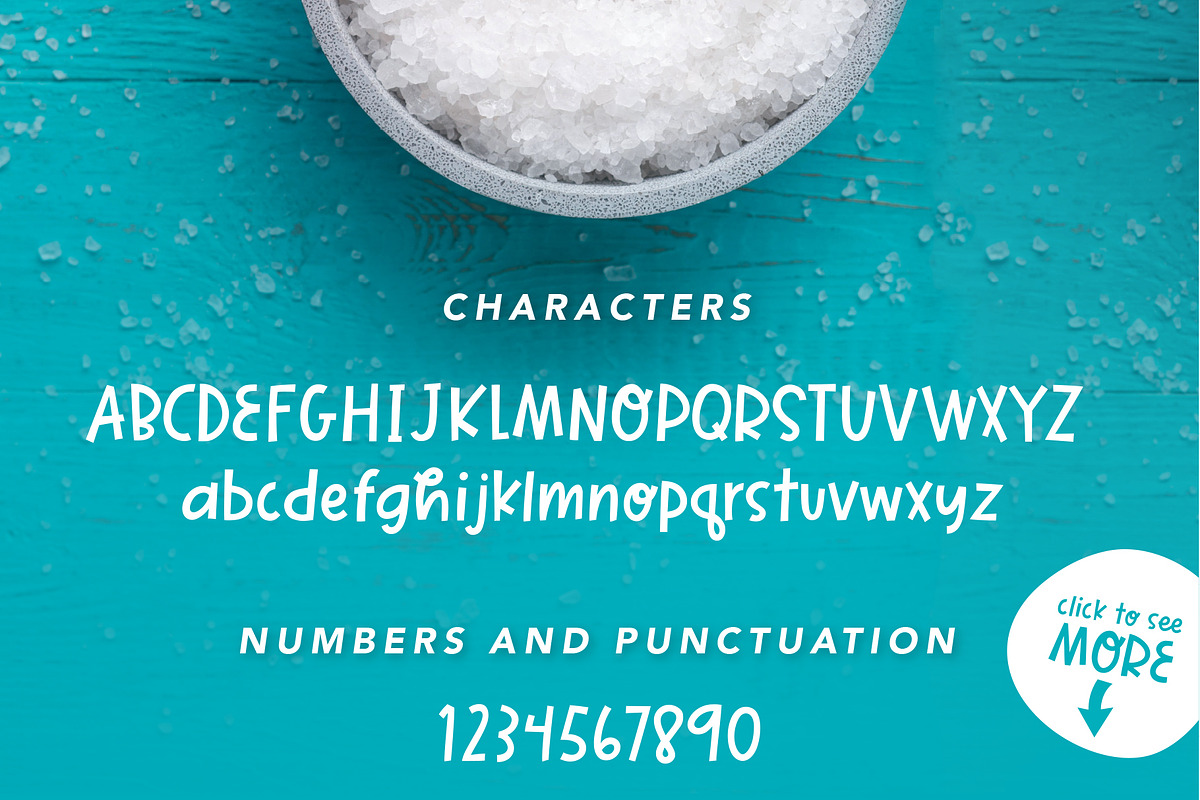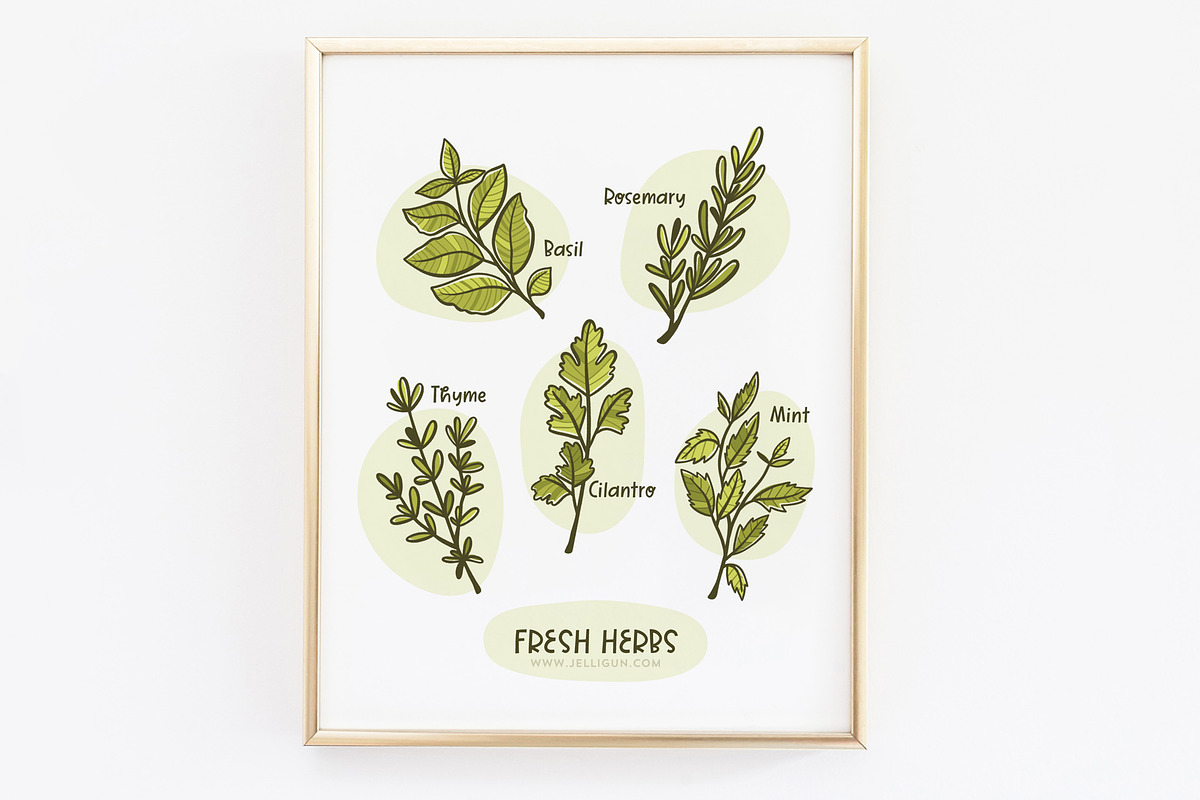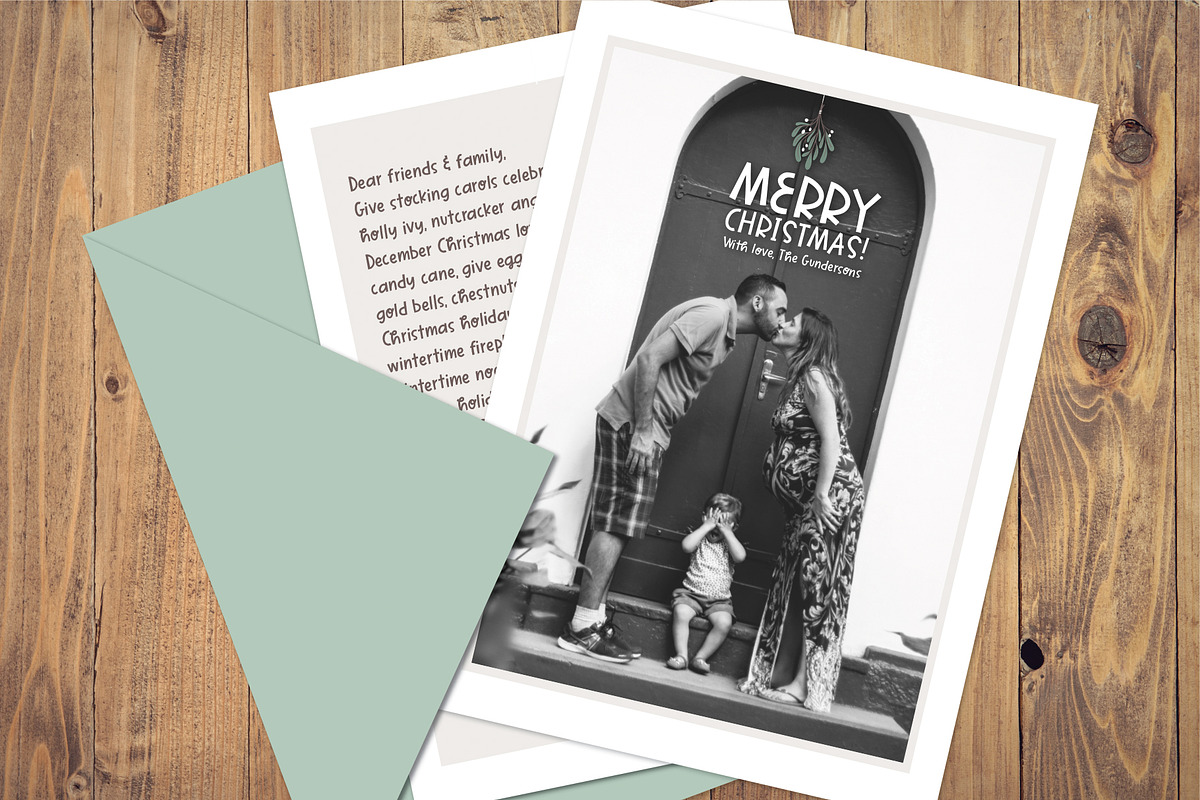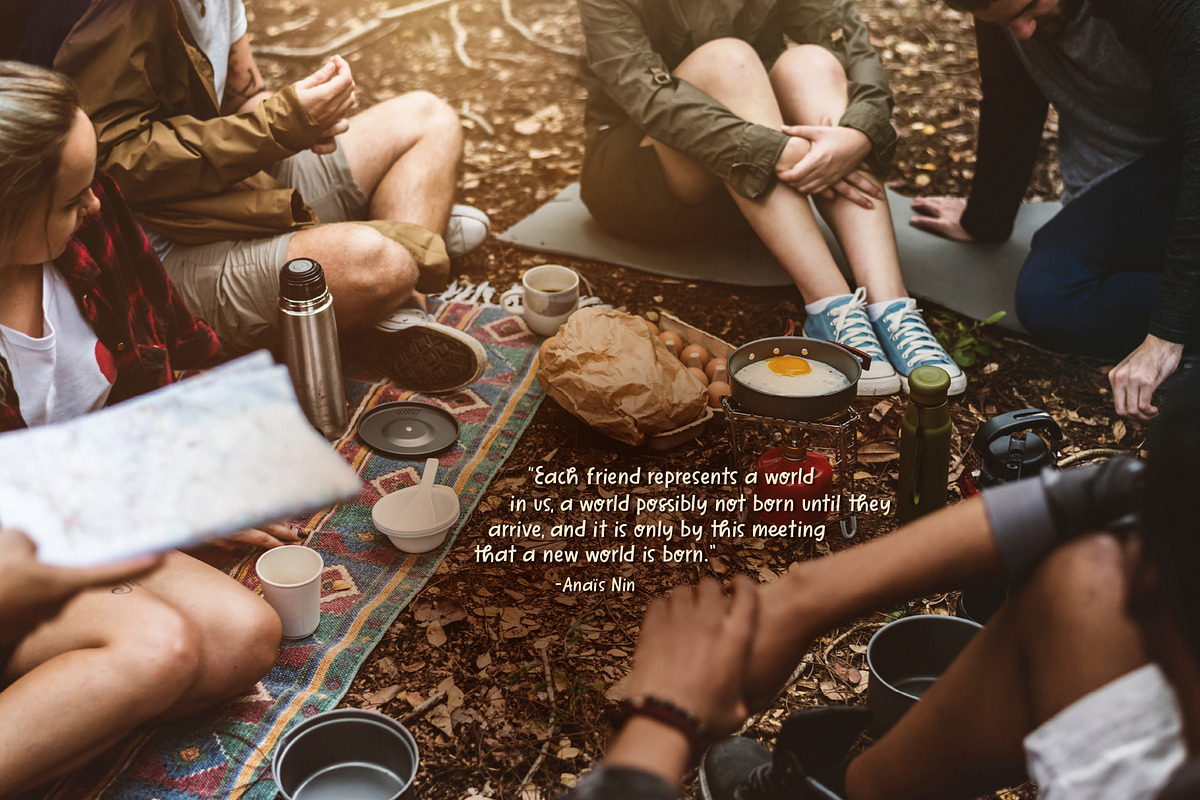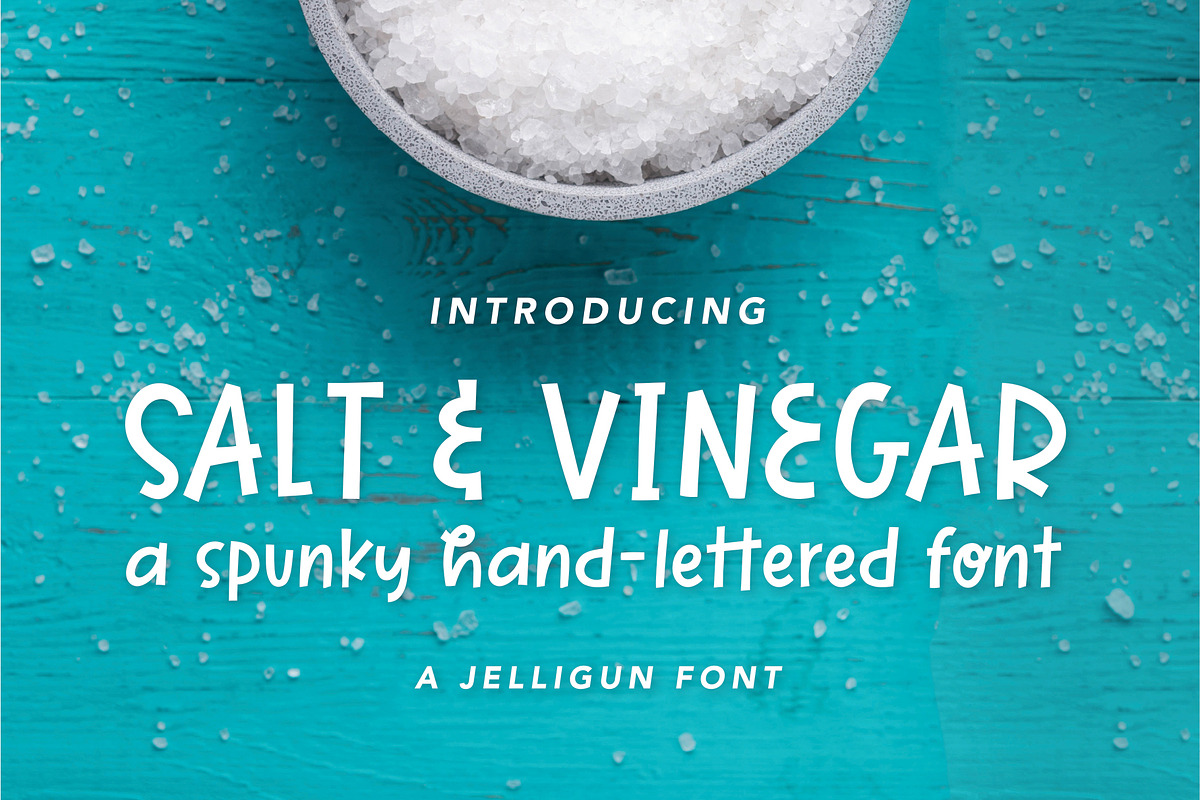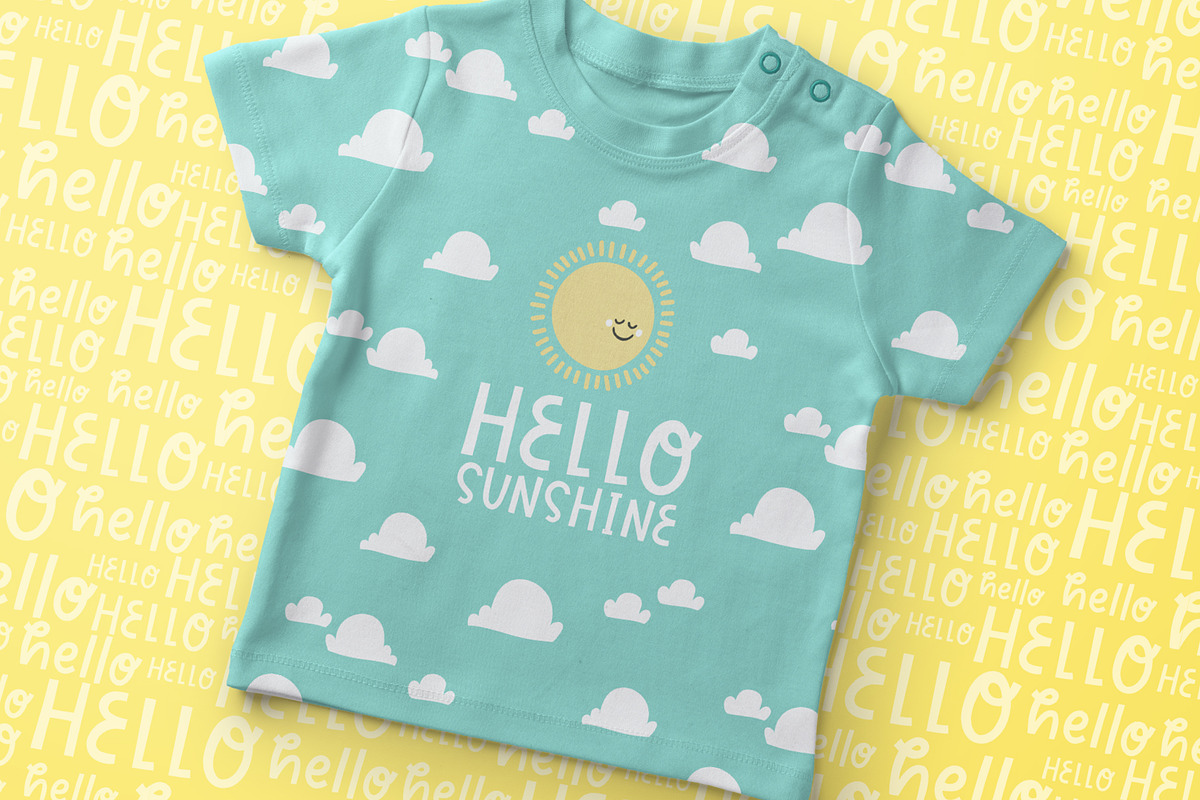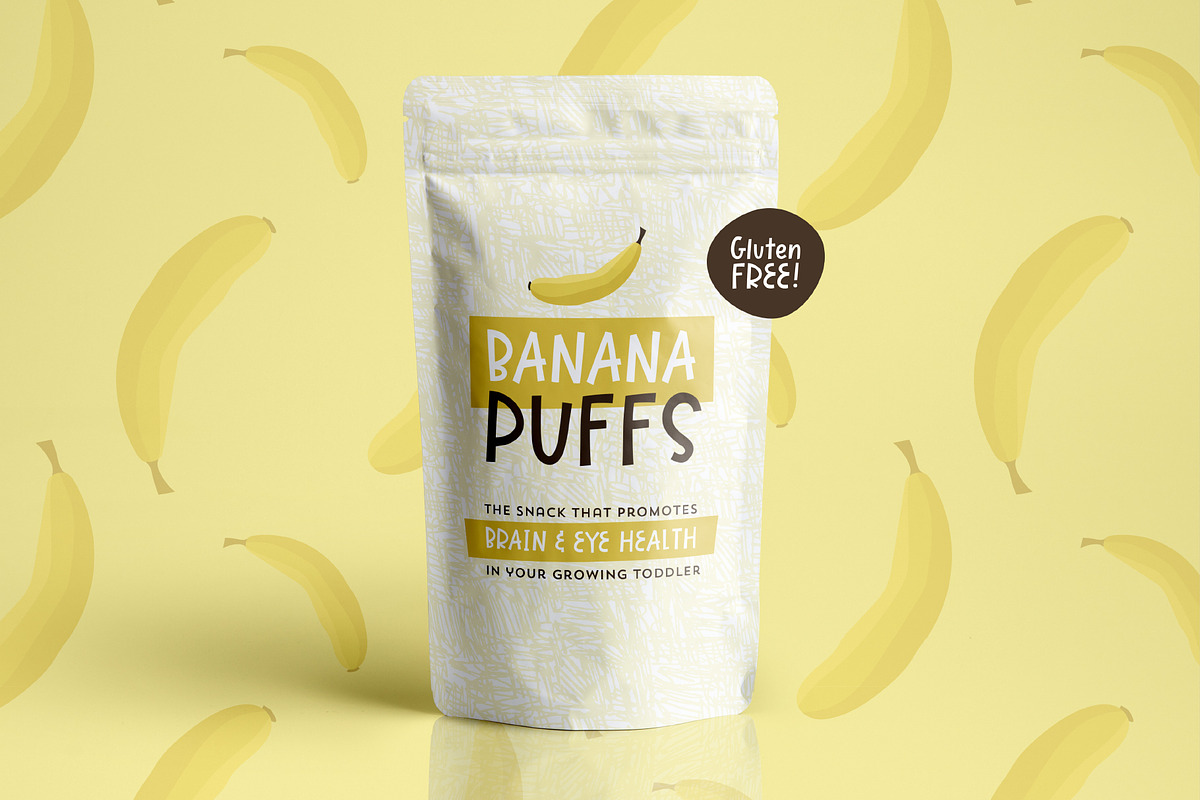
Salt & Vinegar | A Spunky Block Font
Salt & Vinegar is a spunky font, with a distinct personality. The playful block letters give your text a charming, hand drawn feel, through the use of quirky letters and unique ligatures. Try Salt & Vinegar for stationery, social media, illustrations, magazines, marketing, and more!
Take a peek at the images above to see some of the glyphs included, and get some ideas for fun ways you can use Salt & Vinegar in your next project.
- Standard English uppercase and lowercase characters
- 11 double letter ligatures
- A large range of punctuation
- Multilingual support for Western European languages
- The playful block letters give your text a charming, hand drawn feel, through the use of quirky letters and unique ligatures.